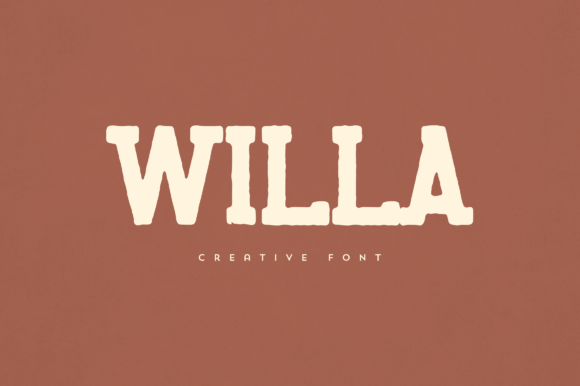
Unleash your creative vision with Willa, the display font that casts a mesmerizing enchantment on every design it graces. With its ability to transform ordinary text into a symphony of visual brilliance, Willa stands as a testament to the power of typography.
Step into a world of boundless possibility, where every letter is a work of art. Willa's stylistic prowess empowers you to weave visual tapestries that resonate with your audience. Cast a new light on your Instagram posts, allowing your words to dance with newfound energy and grace.
Willa's versatility extends beyond social media realms, making it the perfect font for an array of projects, frombranding ventures to home-ware designs. Envision sleek and captivating designs that speak to your customers' desire for sophistication and authenticity. Elevate your productpackaging, making every unboxing experience an occasion to remember.
Headlines and magazine covers adorned with Willa's graceful presence command immediate attention. Its ability to transform plain text into captivating declarations makes it an ideal choice for making a statement that echoes in the reader's mind long after the last page is turned.
Immerse yourself in a world of design enchantment as Willa breathes life into your visual dreams. Each character, a work of art, blends seamlessly with any background image, adding a touch of artistry that captivates and inspires.
Join the growing community of creatives who have discovered the magic of Willa, where typography takes center stage, and words become more than mere words - they become an expression of your unique style and vision.
Don't let your designs settle for ordinary; transcend the mundane with Willa, the display font that will forever change the way you approach typography. Embrace the transformative power of beautiful font and watch your creative dreams take flight.